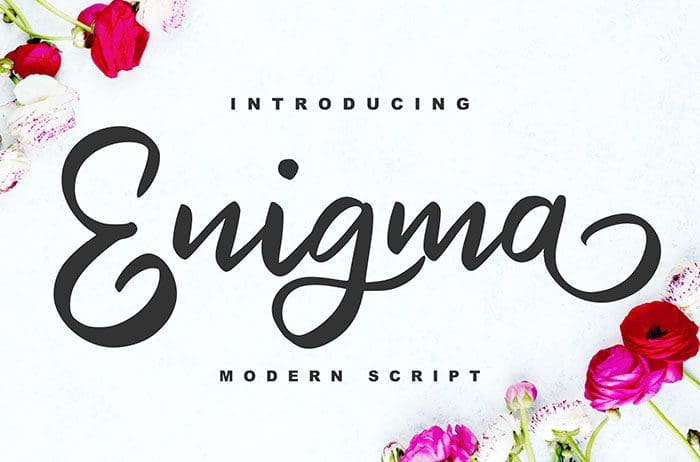
Enigma Script Font
Enigma is a stunning and vibrant script font featuring incredibly lovely swashes. Use it to turn any design idea into a true standout! Thanks to Vunira Studio for sharing this font! Take a look at this portfolio for more of his stunning fonts.